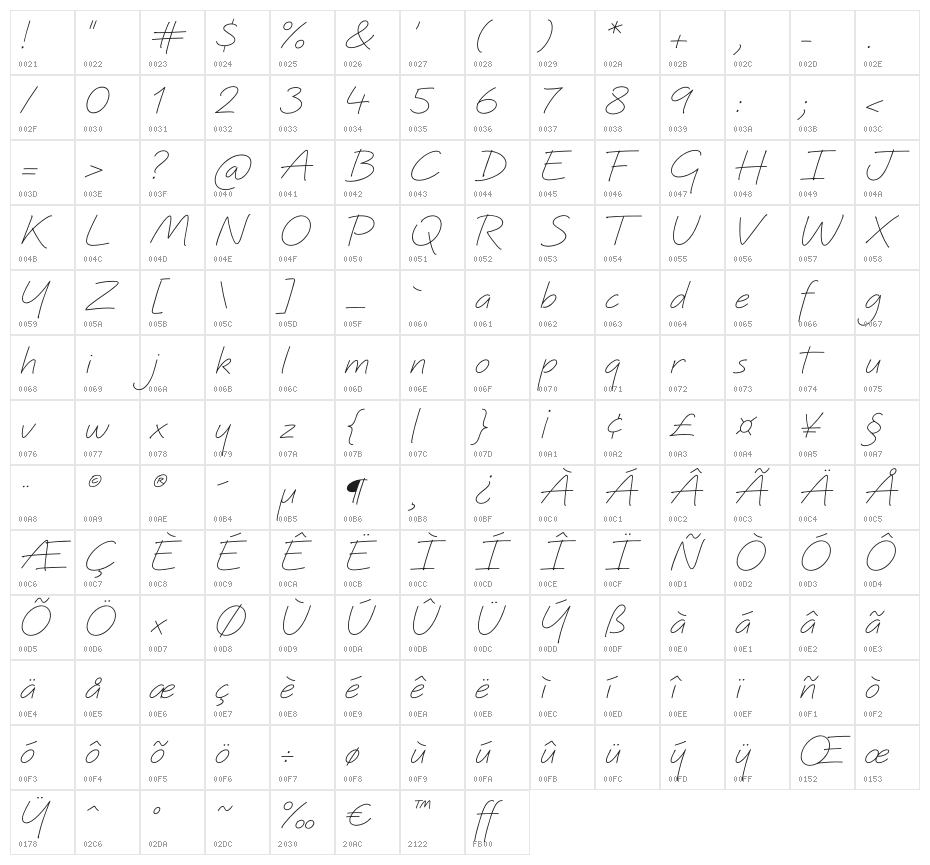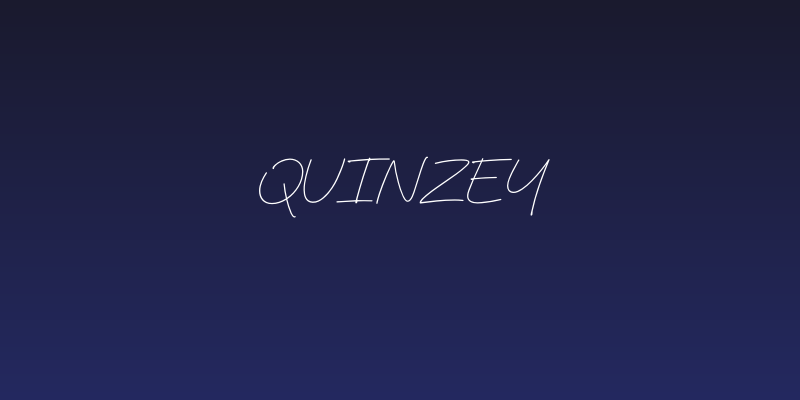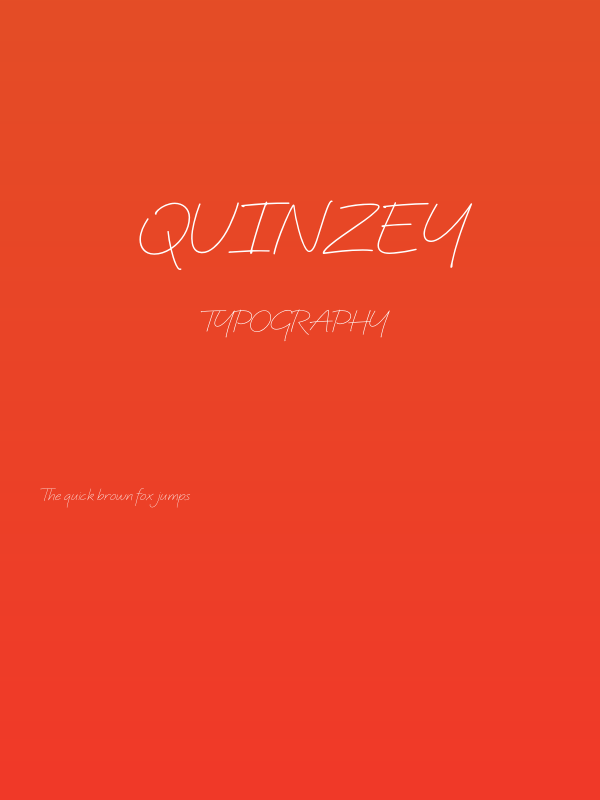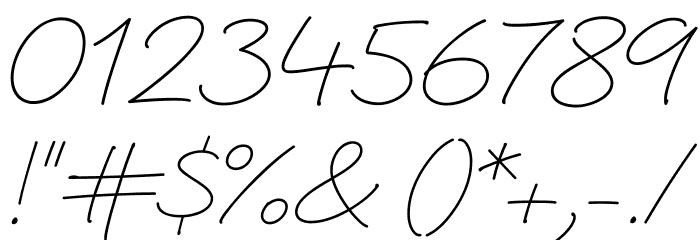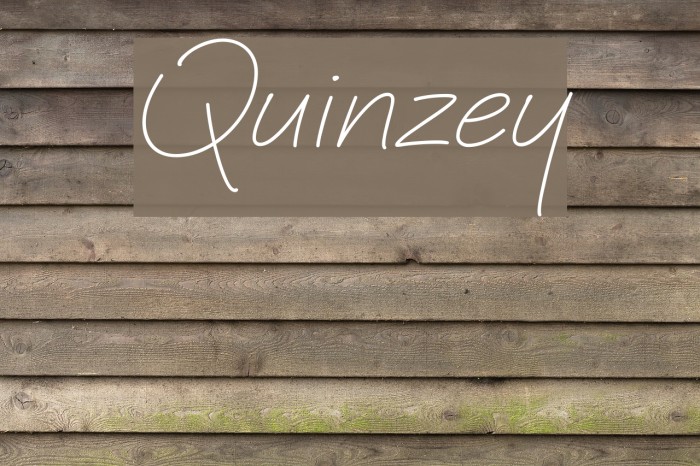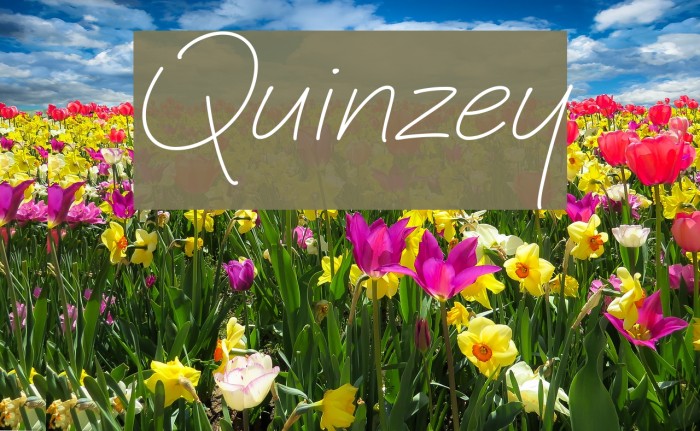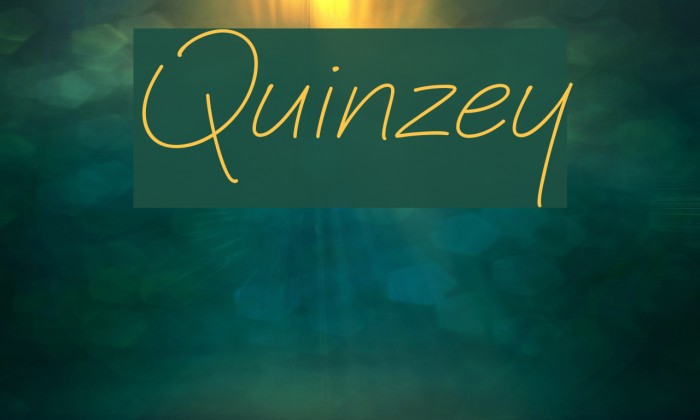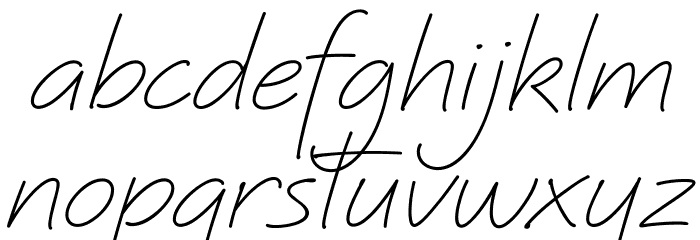
Quinzey Font
Quinzey Description
This font features a flowing, cursive style that mimics elegant handwriting. The characters are connected in a smooth, continuous manner, giving it a natural and personal touch. The uppercase letters are slightly larger and more pronounced, while the lowercase letters maintain a consistent flow. The numerals are clear and legible, complementing the overall script style. Special characters are seamlessly integrated, maintaining the fluidity of the design. The strokes are thin and consistent, providing a delicate appearance that is both sophisticated and approachable.
| Use Case | Logos, Invitations, Personal Correspondence |
| Proposed Projects | Ideal for wedding invitations, personal letters, greeting cards, and branding projects that require a personal touch. |